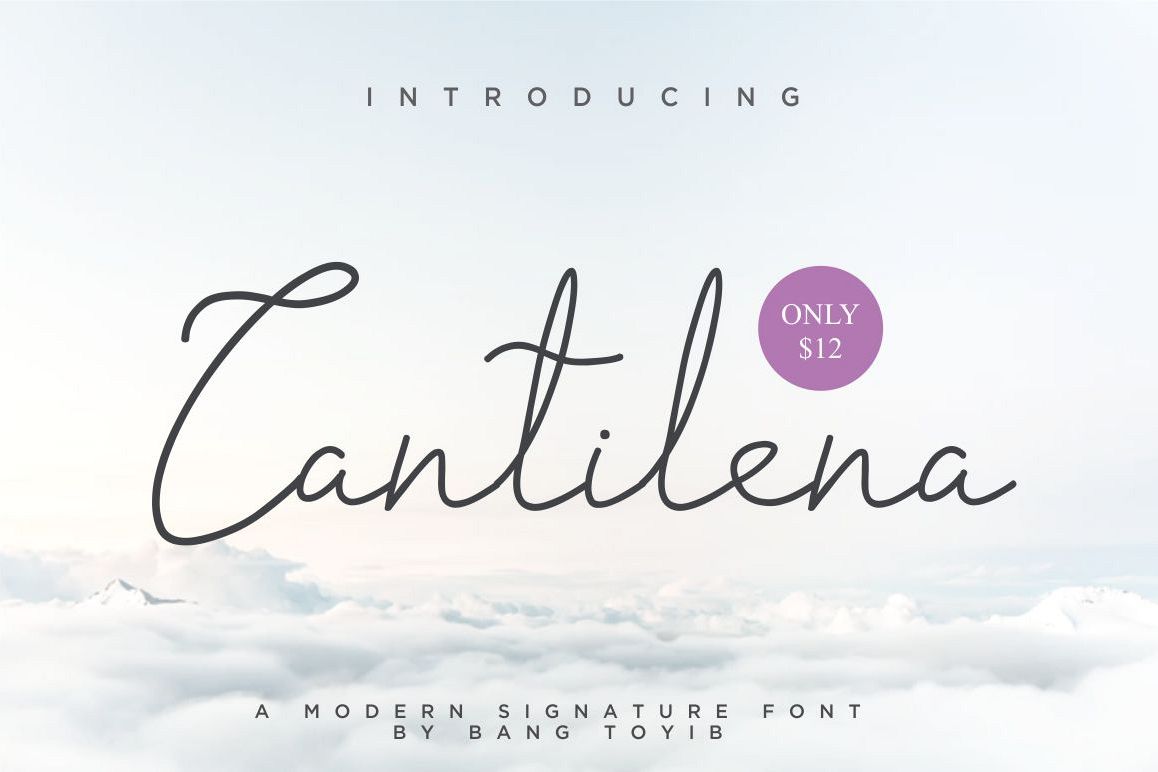
Cantilena - Signature Font
cantilena swash
Cantilena is a beautiful font, perfect for adding some romance and charm to your designs. This script functions most strongly as a display or headline font. suitable for logo, logotype, branding,wedding, fashion, label, book cover, t-shirt, instagram post, and otheralso this font is amazing for different project ex: photography, watermark, quotes, blog header, poster, wedding, branding, logo, fashion, apparel, letter, invitation, stationery, etc.Features
• Swash